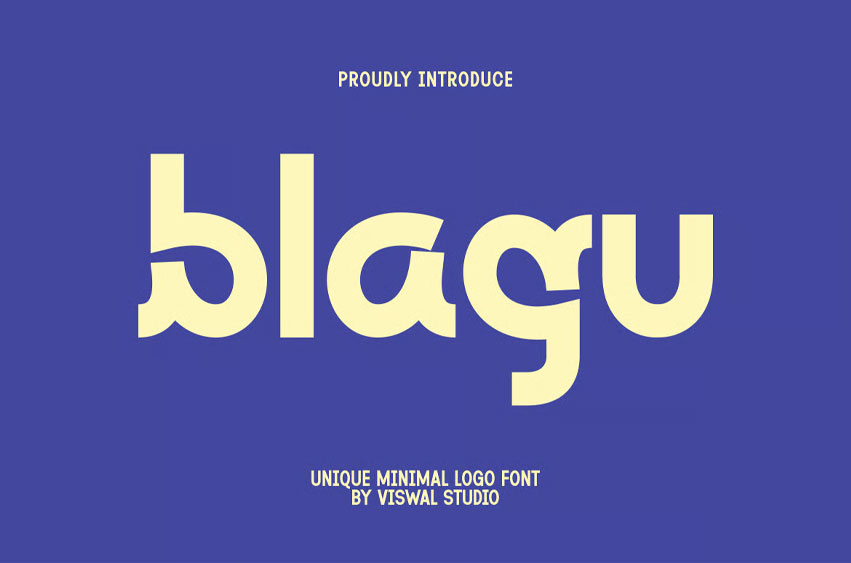
Blagu Font
Blagu Font Is A Unique & Elegant Font. Can Make It Easier To Convey The Message In Your Design. Font Is Suitable For Logos, Labels, Badges, Brandings, Magazines, Posters, Titles, Gigs, Covers, Etc.
Our Fonts Have Uppercase & Lowercase, Numeral & Punctuation, And Opentype Features. For Amazing Designs You Can Mix With Other Fonts As A Complement.